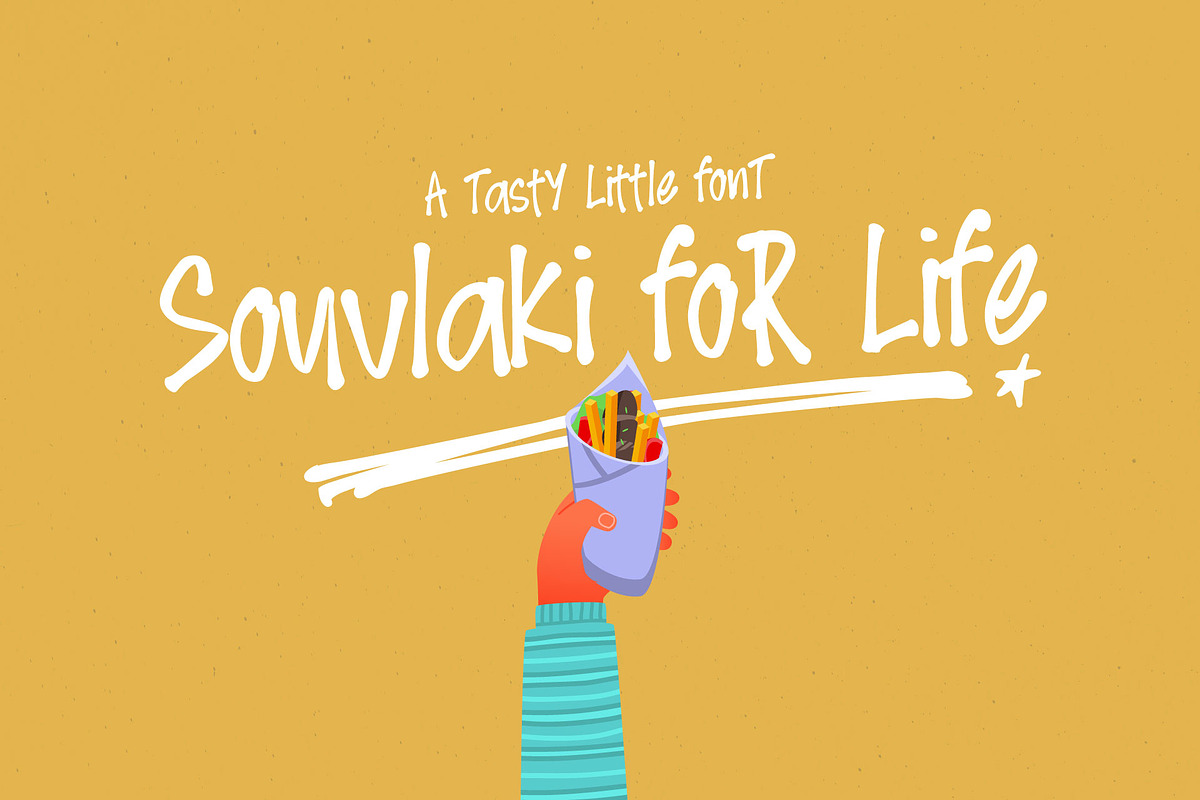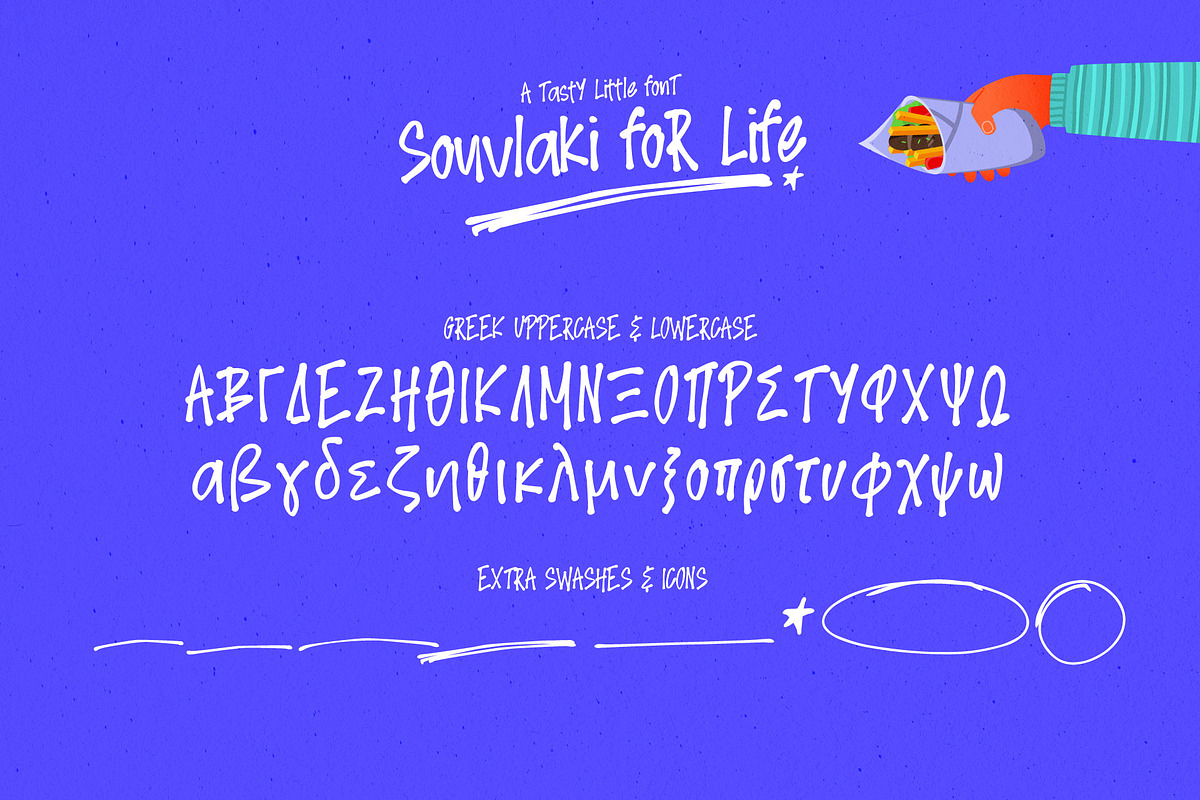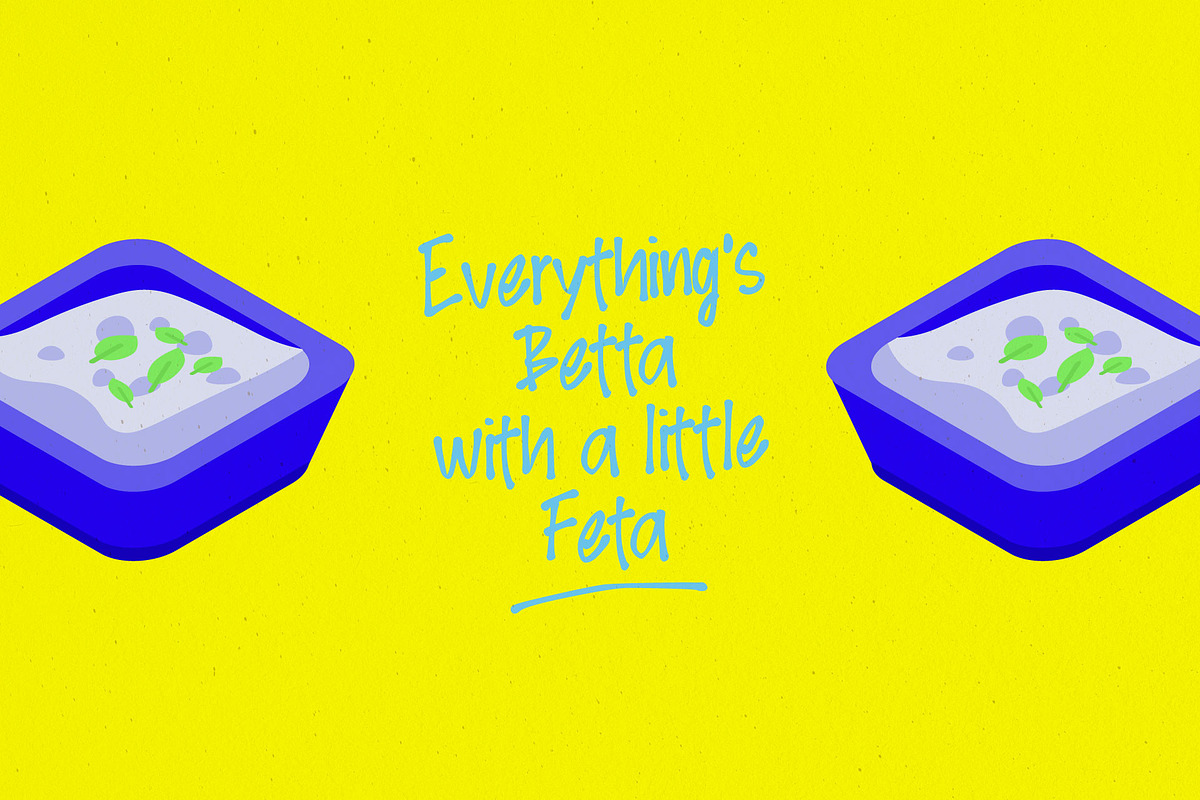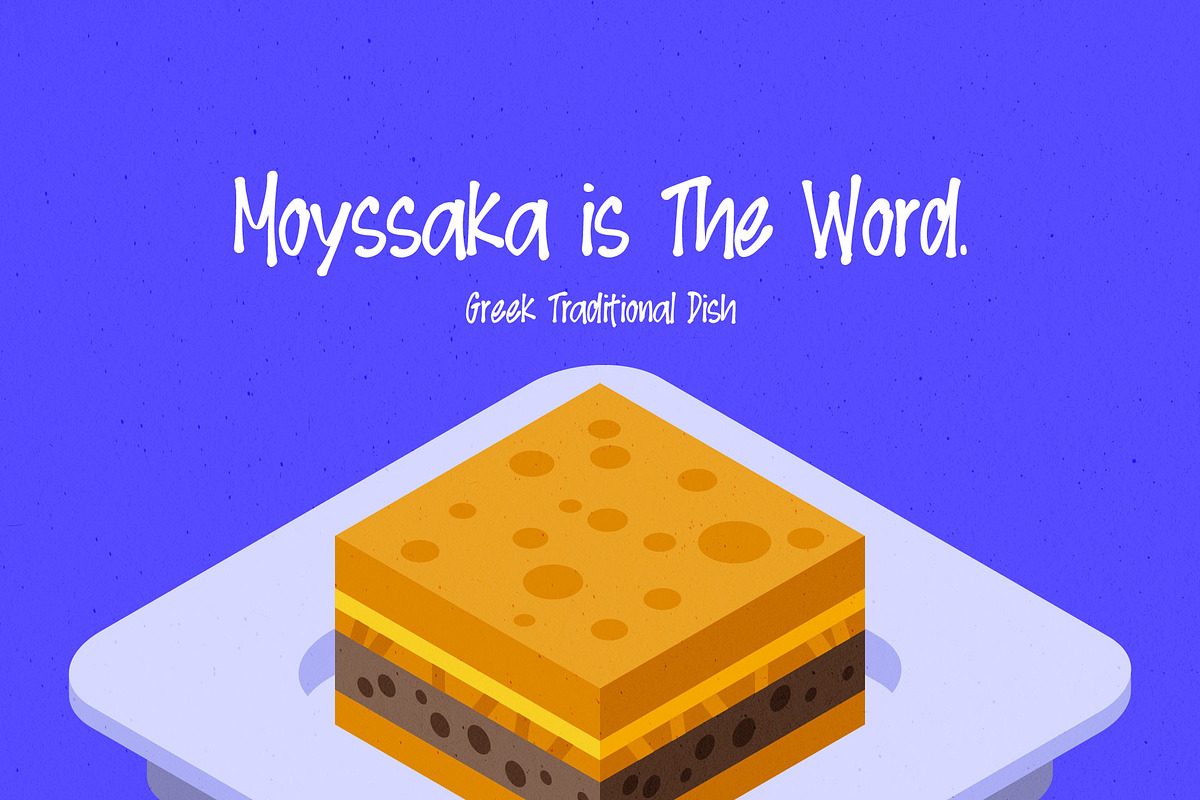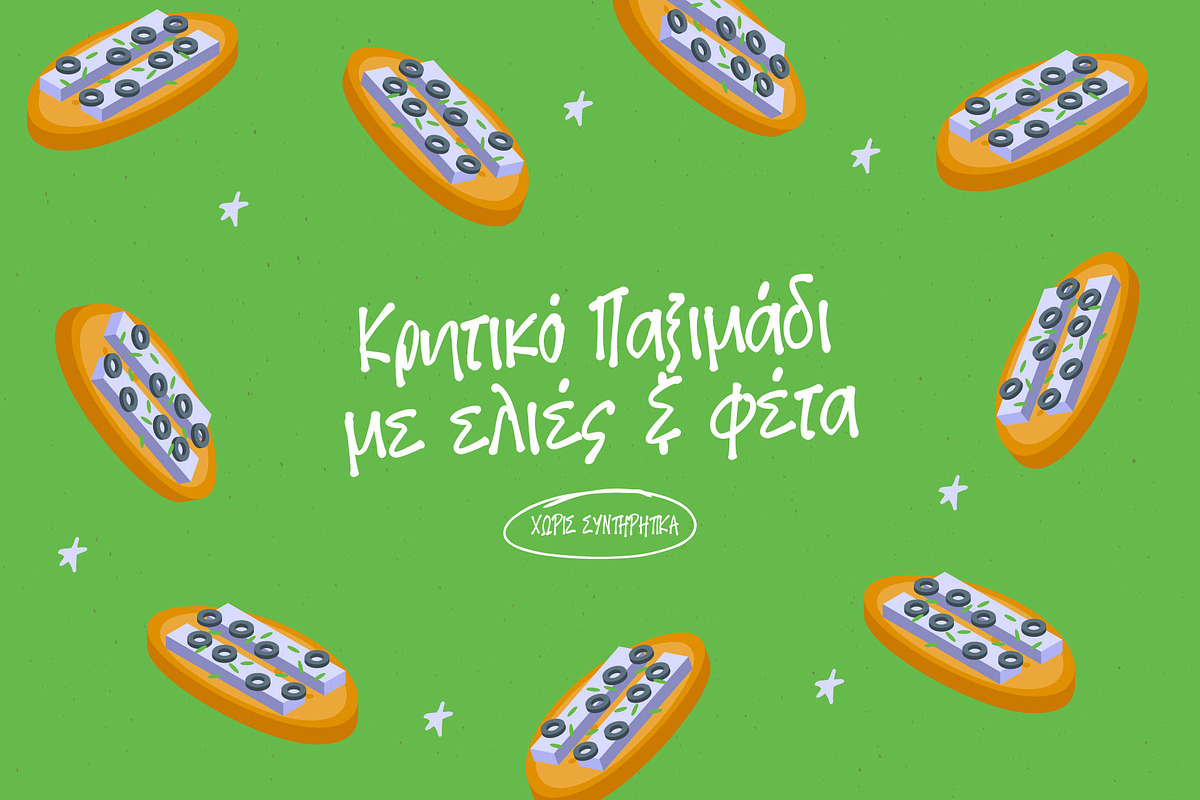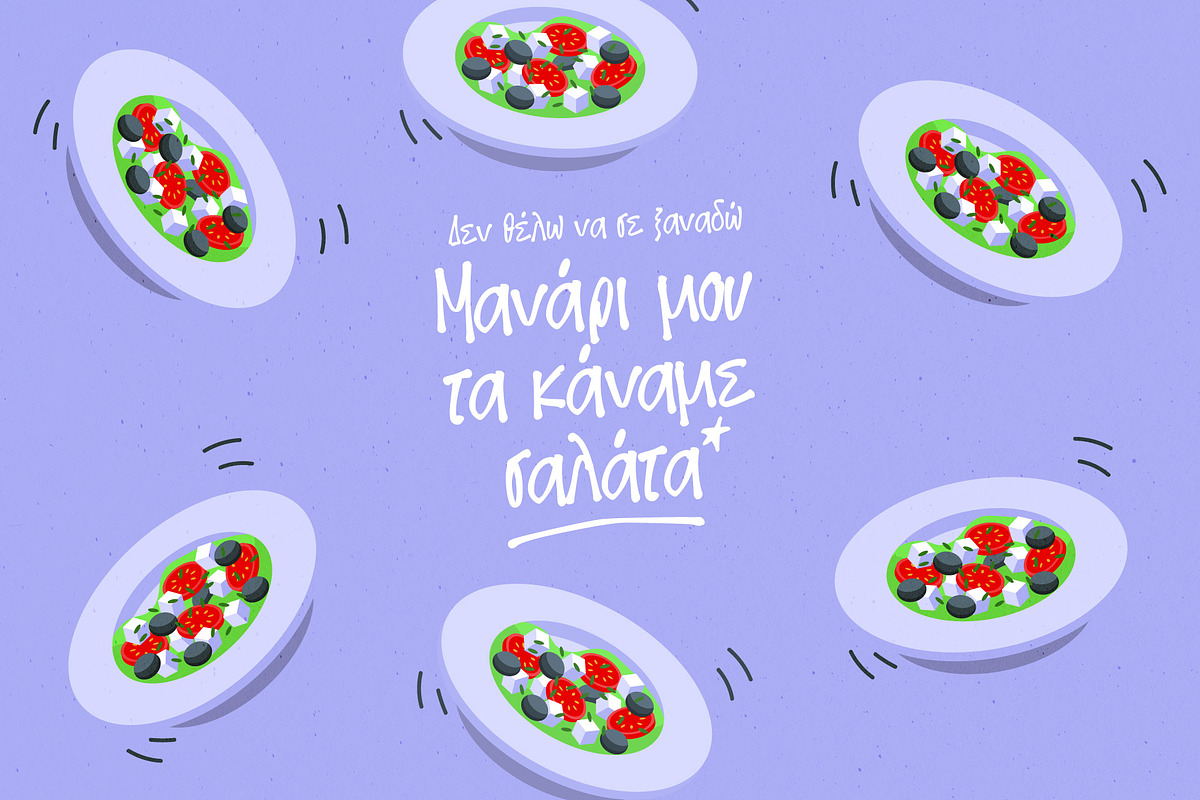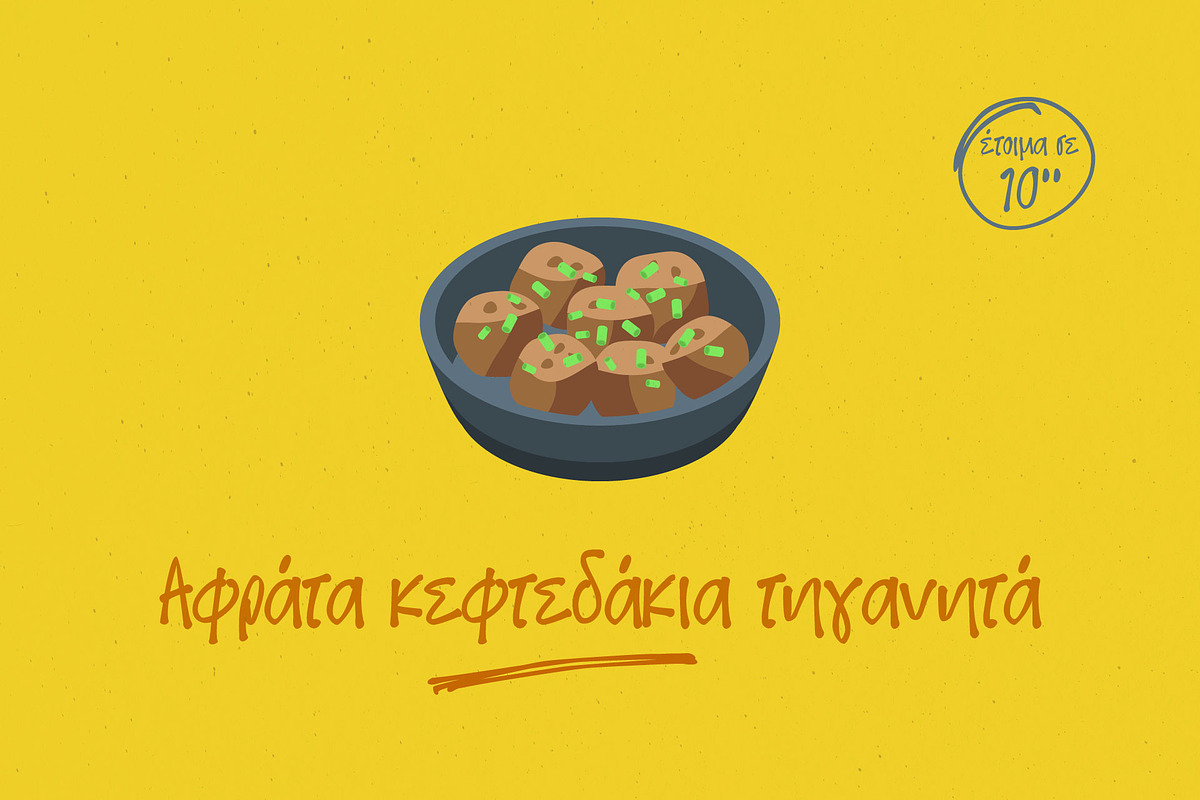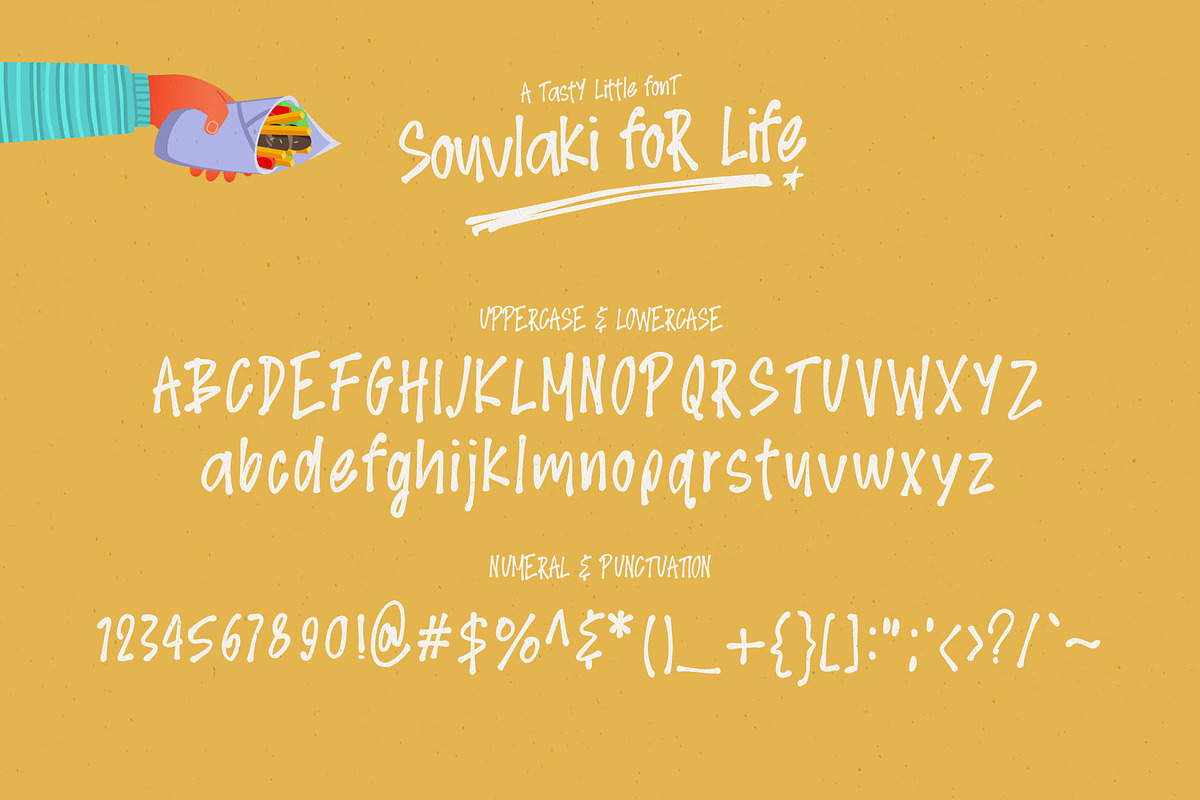
Souvlaki for life
Say hello to 'Souvlaki for life' - a tasty little handwritten font, ready to make you hungry for design!
The font comes with extra swashes and icons and as always you will find a full uppercase and lowercase Greek alphabet as well.
This Greek food inspired font is perfect for quotes, editorial, tasty greeting cards, cool branding or anything you will come up to.